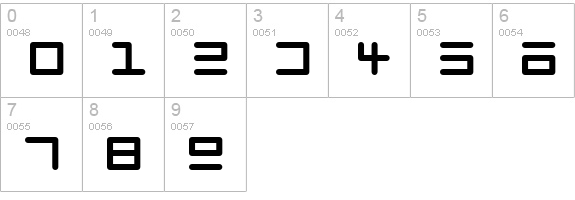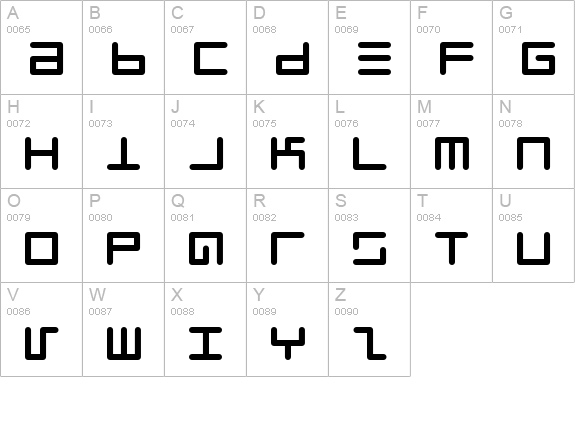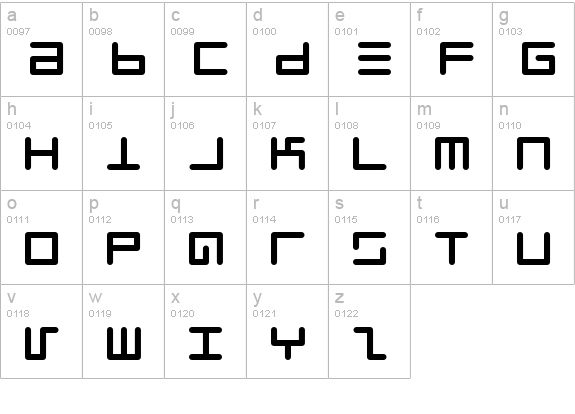
Eppy Evans Round Font Details
Eppy Evans Round is a charming and playful font that exudes a sense of whimsy and creativity. With its rounded edges and smooth curves, this typeface is perfect for adding a touch of friendliness to your designs. Whether you're working on invitations, posters, or branding materials, Eppy Evans Round is sure to make your text stand out. The best part? Eppy Evans Round is available for free download at FontsMarket.com. This means you can easily access this delightful font and use it in your projects without any cost. So why wait? Add a touch of fun and personality to your designs with Eppy Evans Round today!